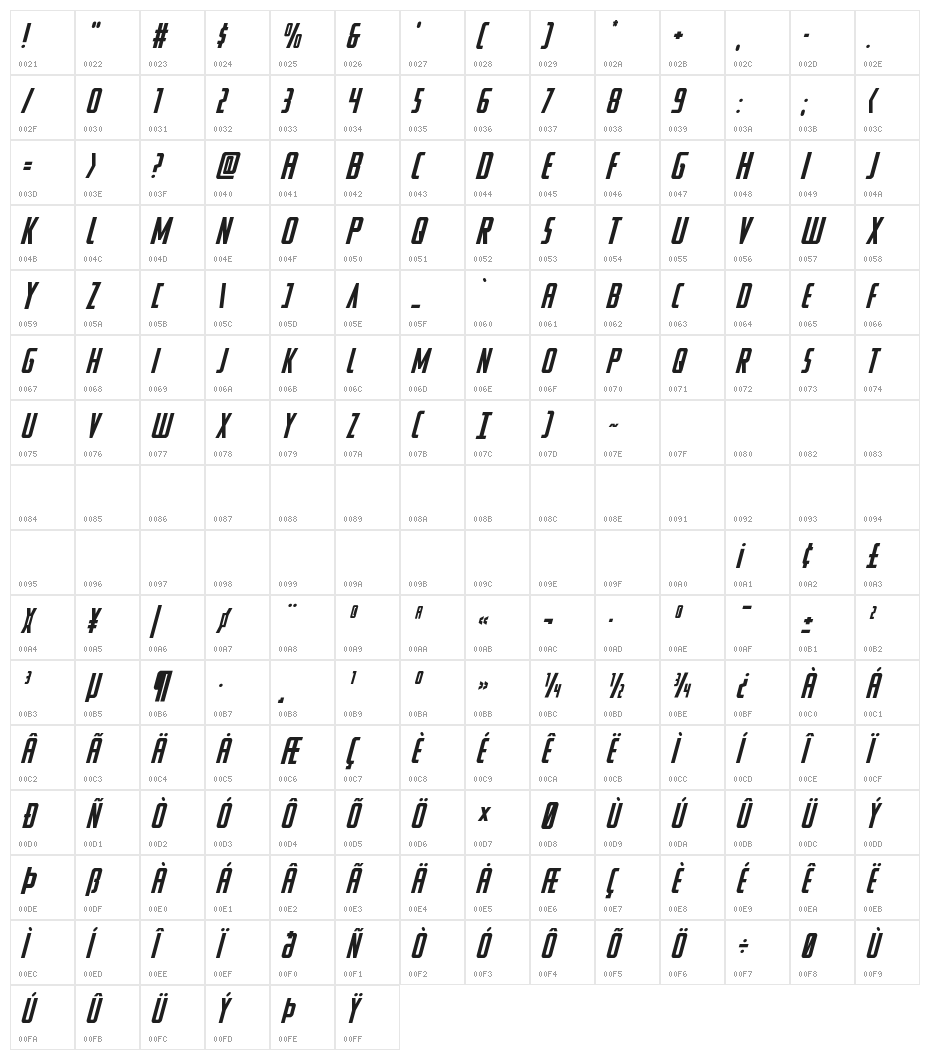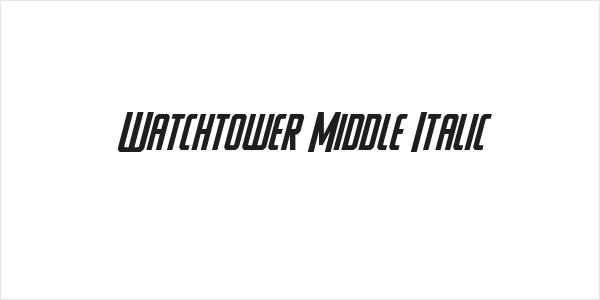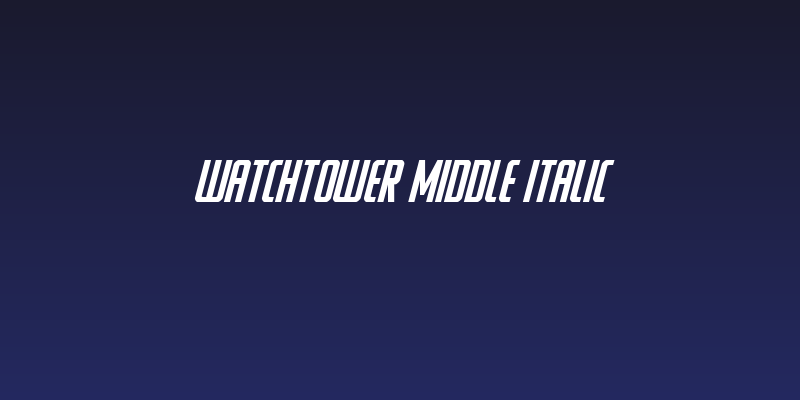
Watchtower Middle Italic Font
Watchtower Middle Italic Description
This font features a bold and dynamic design with a strong italic slant, giving it a sense of motion and urgency. The characters are tall and narrow, emphasizing verticality while maintaining a consistent stroke width throughout. The uppercase letters are particularly striking, with sharp angles and clean lines that convey a modern and assertive aesthetic. The numerals and special characters are equally bold, ensuring readability and impact. This style is well-suited for attention-grabbing headlines and titles.
| Proposed Projects | Ideal for sports branding, action movie posters, dynamic advertising campaigns, and any project requiring a bold, energetic typeface. |